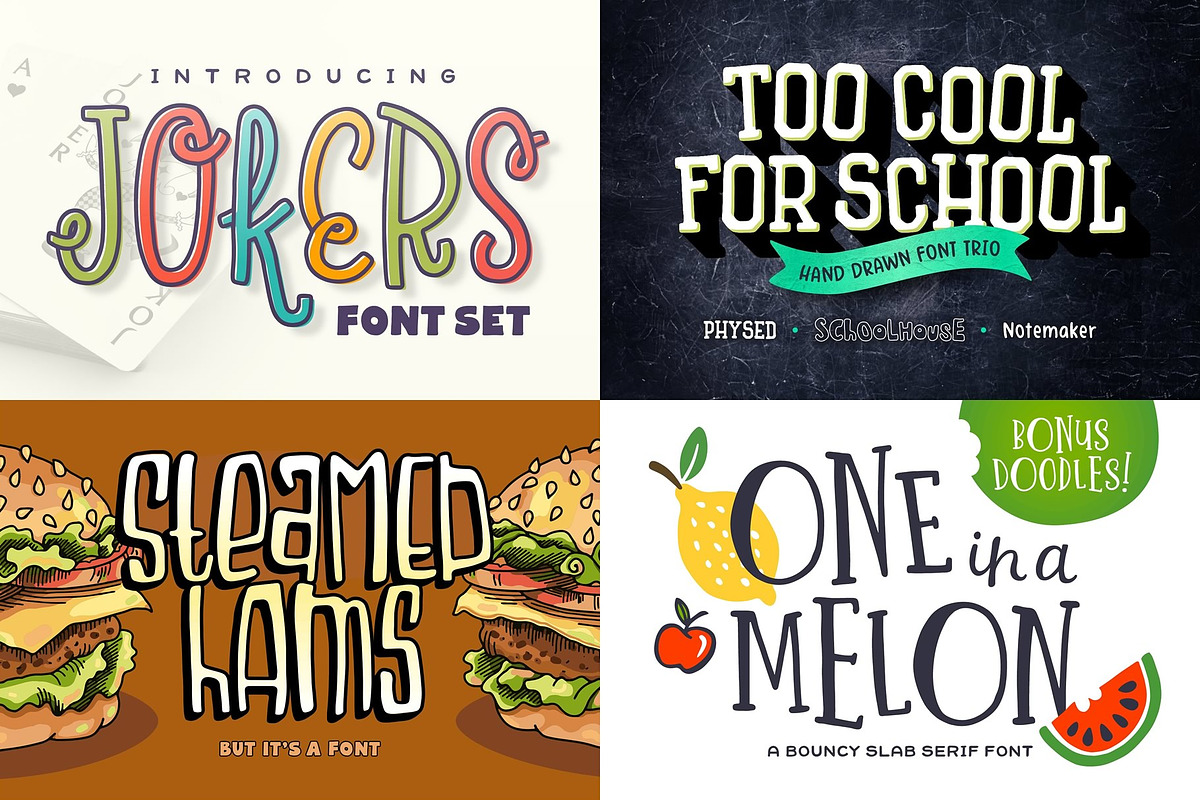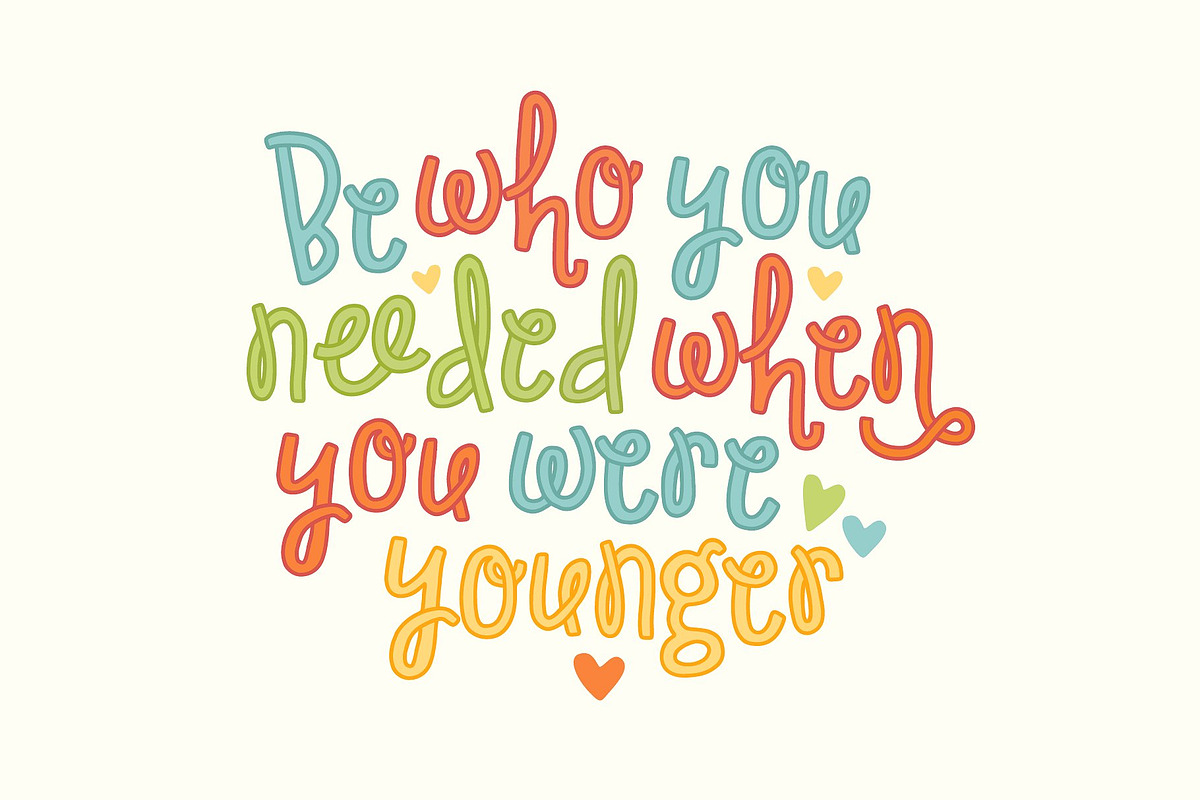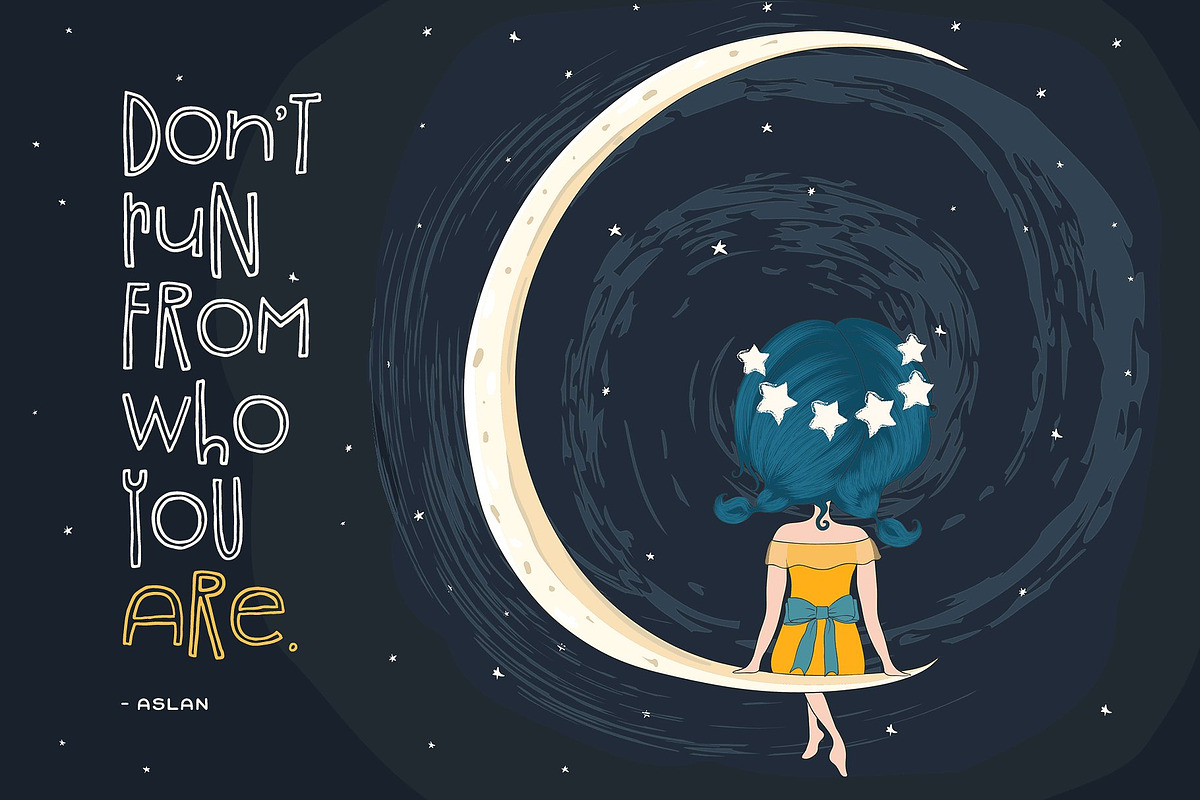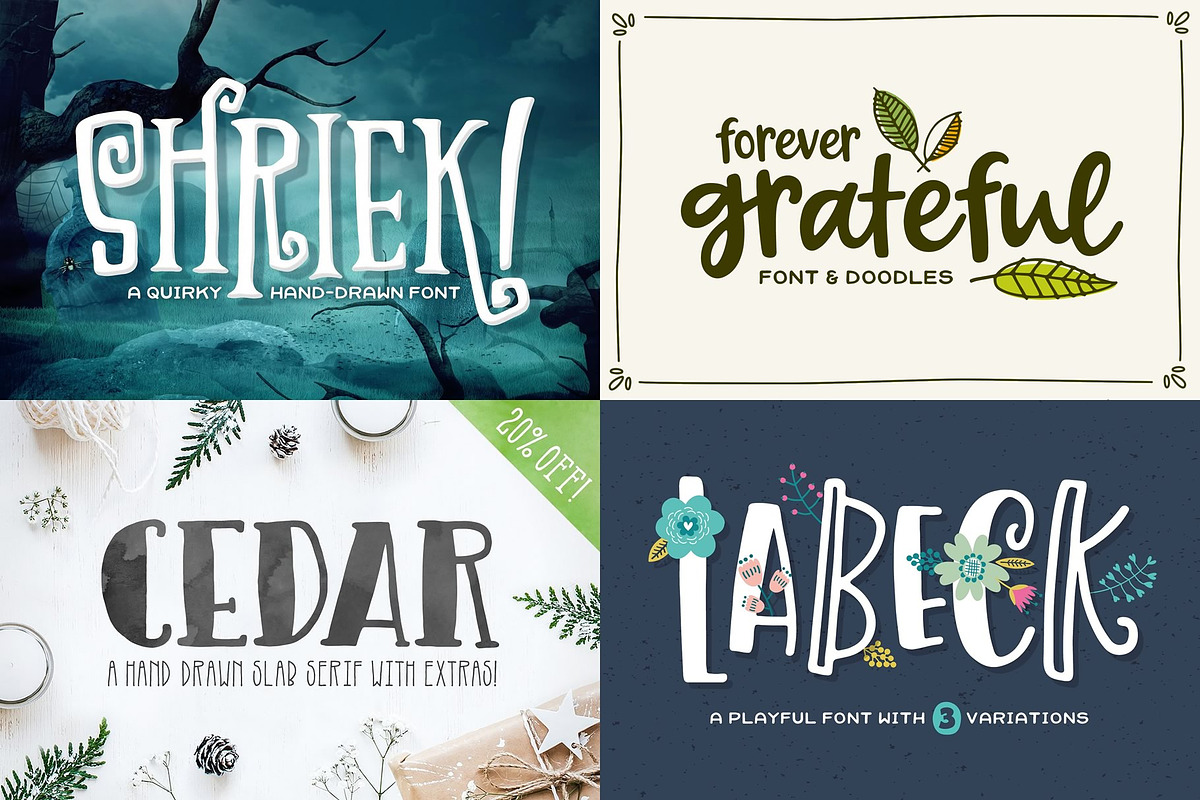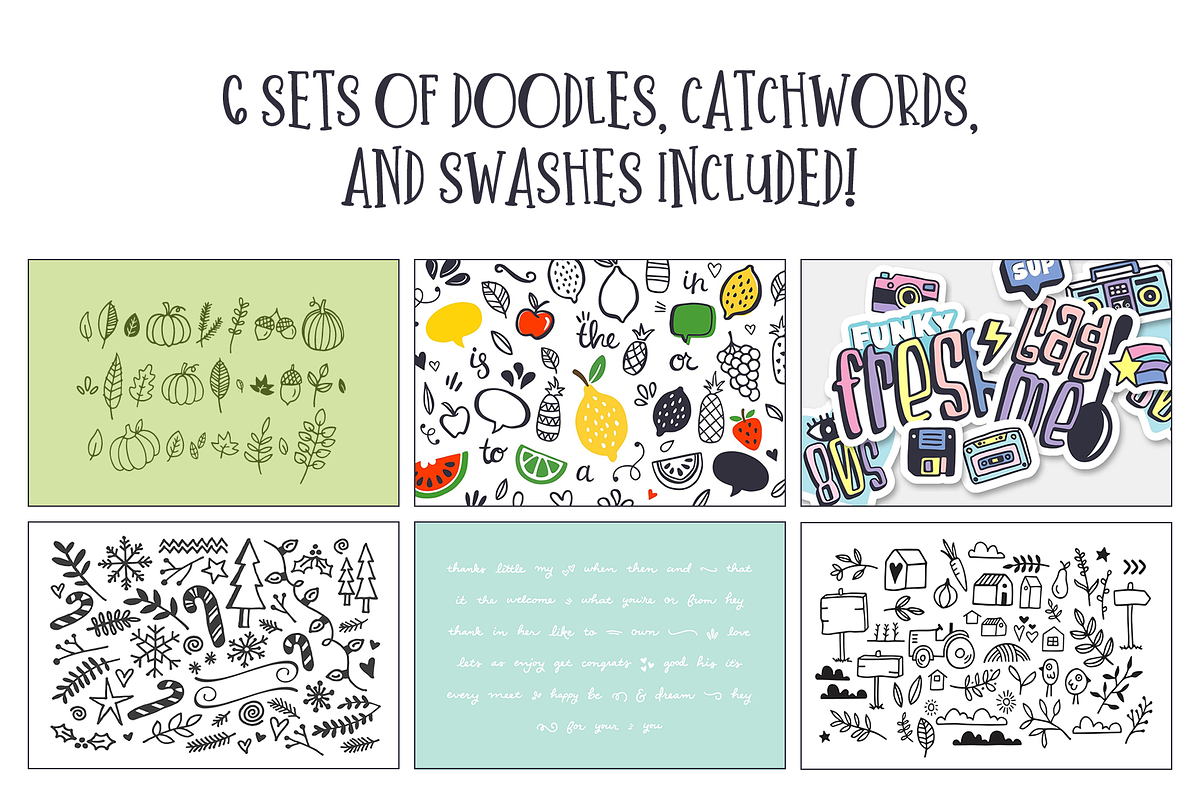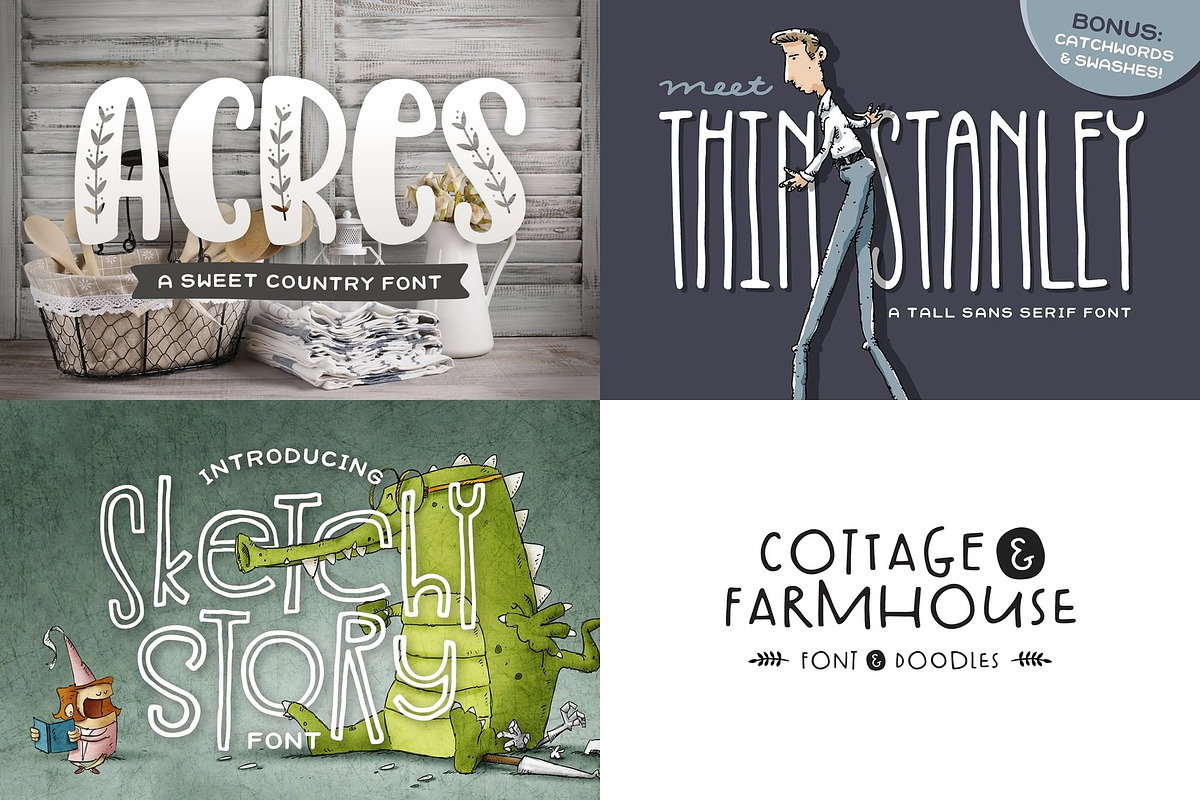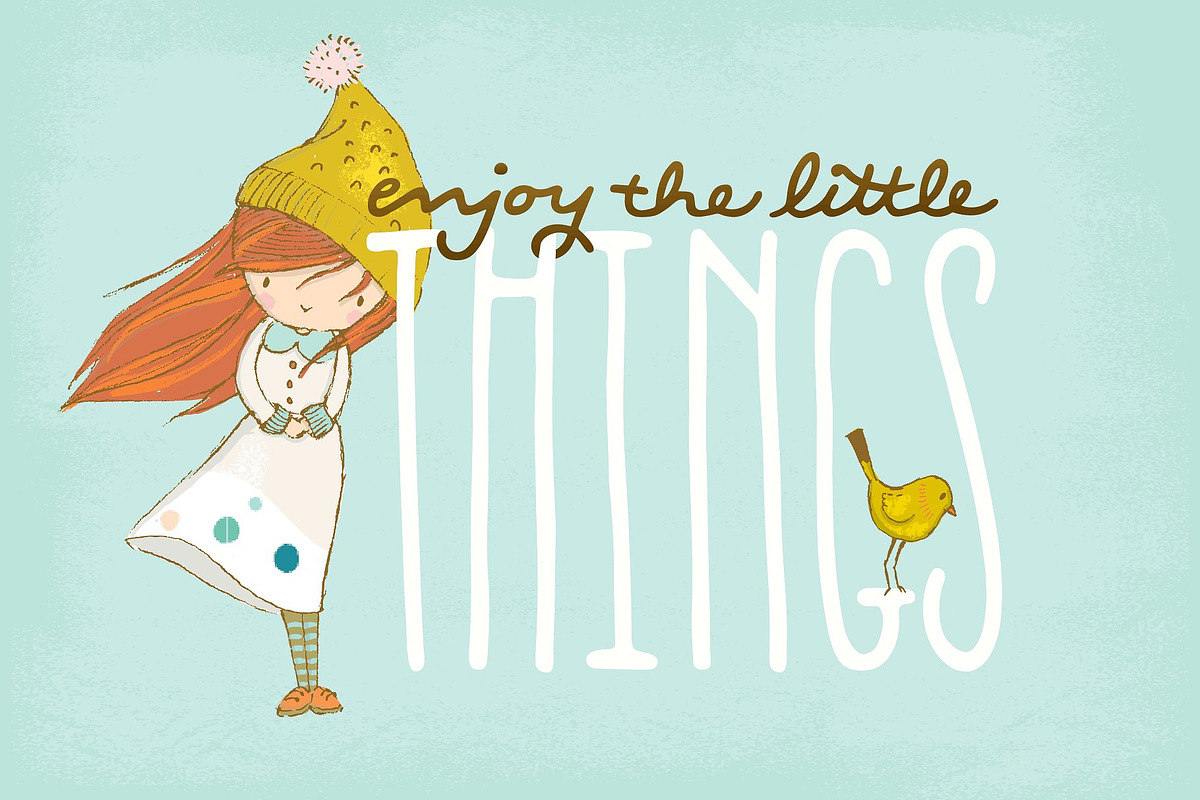
Sweet Dreams Font Bundle
Introducing the Sweet Dreams Font Bundle! 12 cute, hand-drawn fonts + 6 sets of doodles, catchwords, and swashes.
Sweet Dreams Font Bundle by Denise Chandler fits naturally into Branding, posters, packaging, typography.